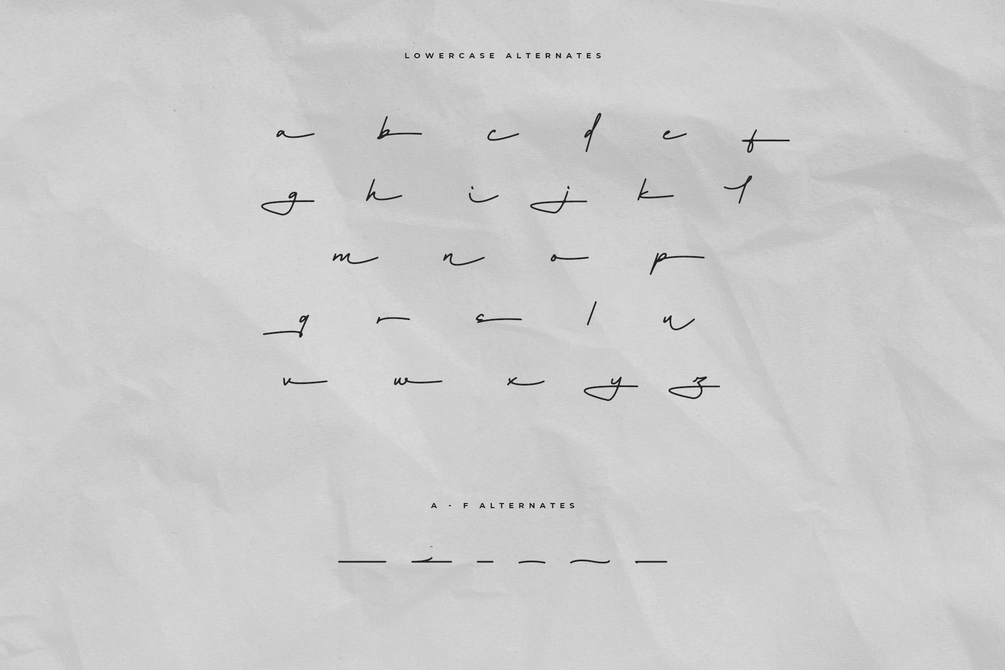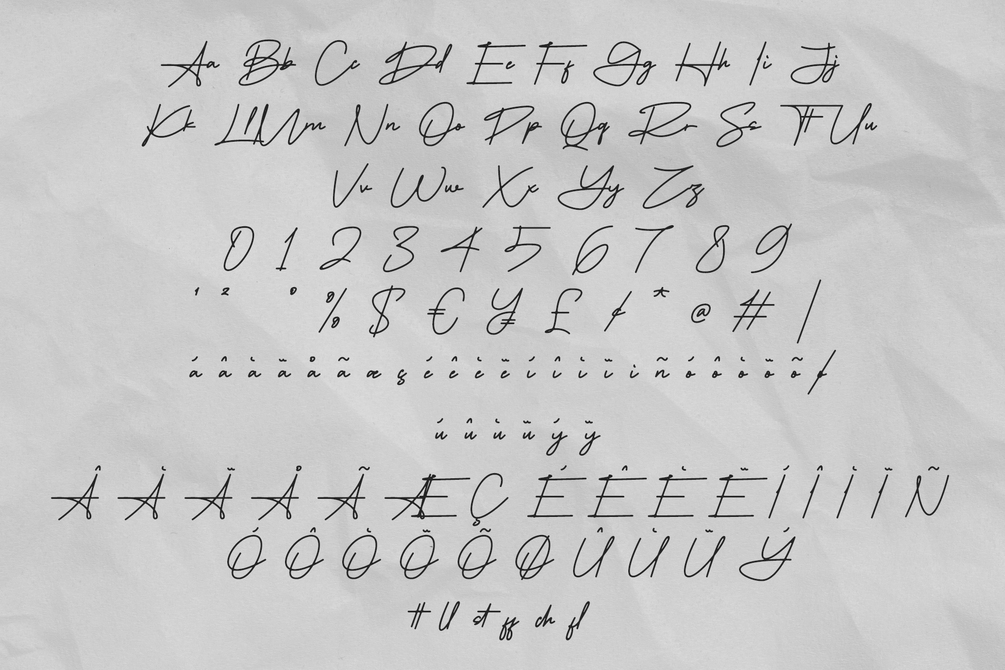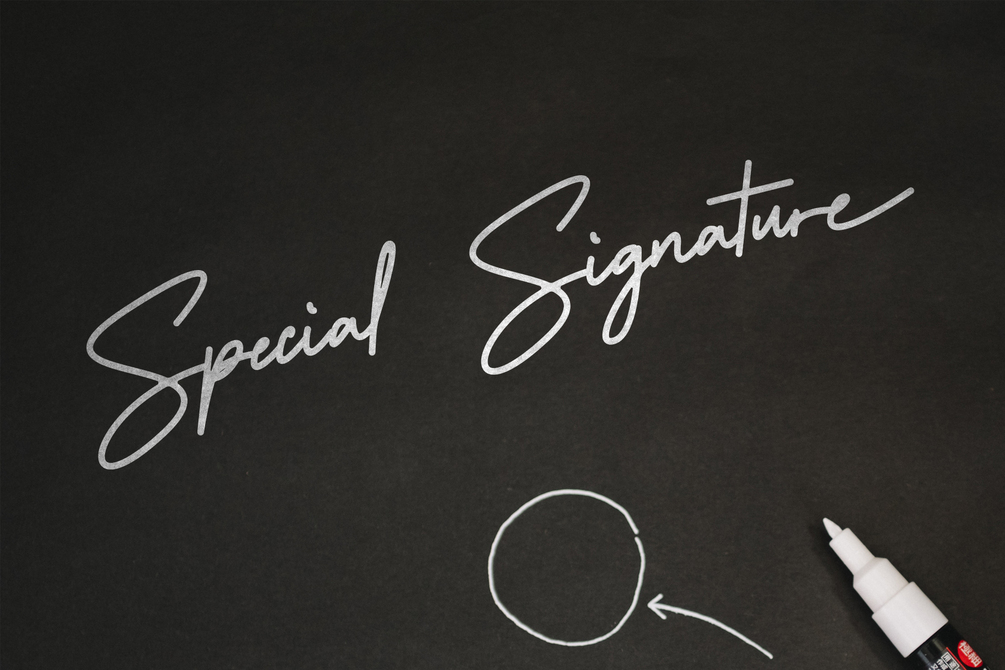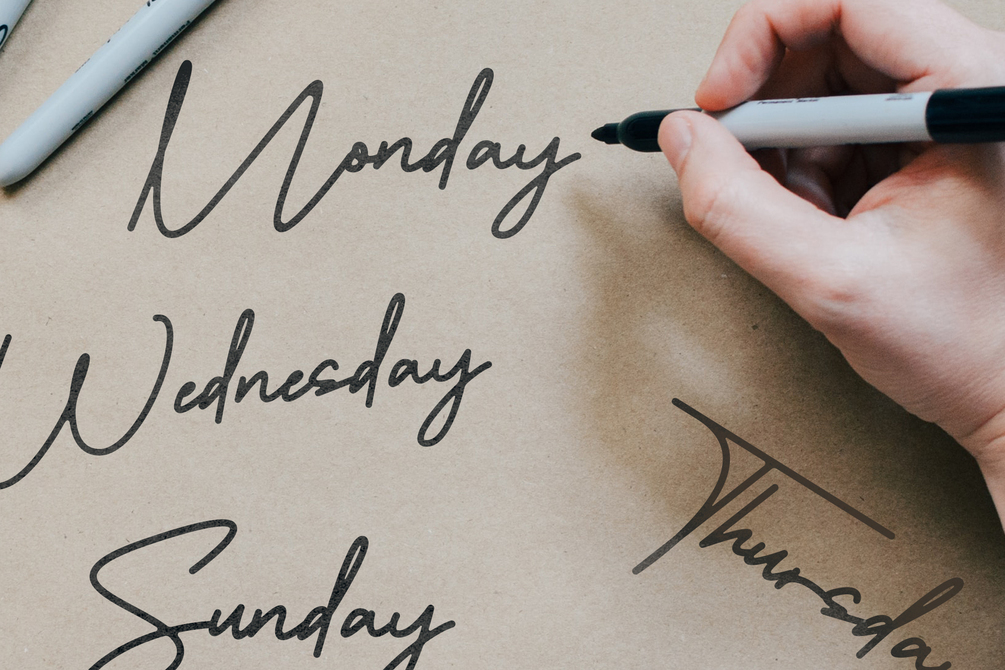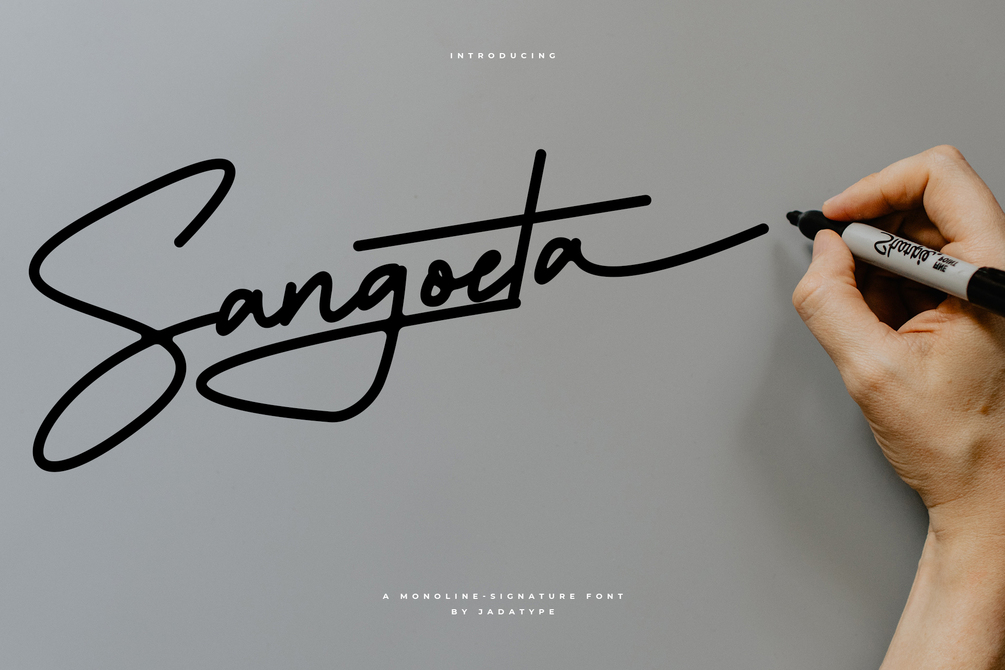
Sangoeta Font
Sangoeta is a font with a stylish monoline-signature style. suitable for branding, social media, products, advertisement, and so on. contains standard English letters, numbers, punctuation, and several accents that support multilingualism.